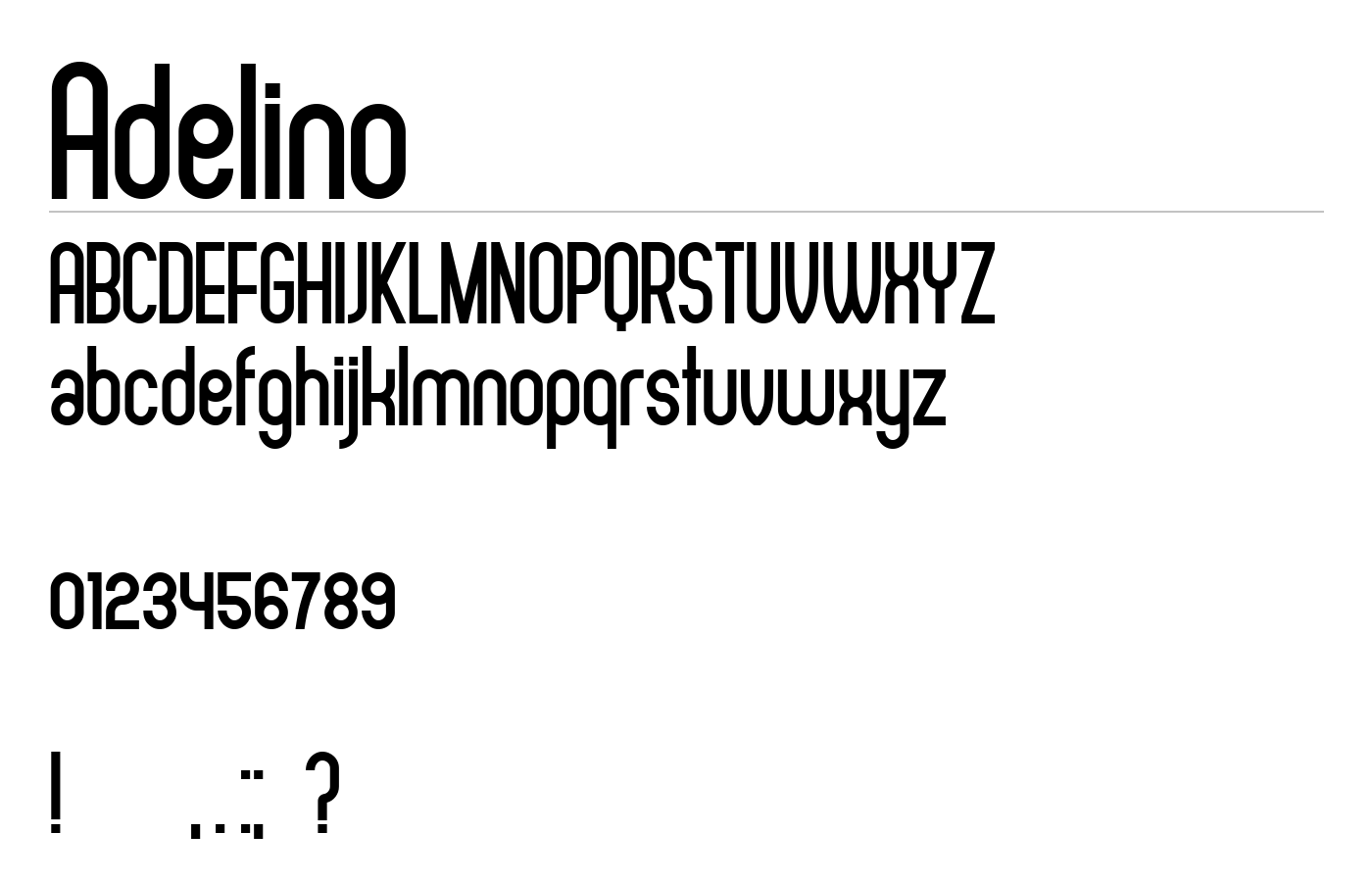
Adelino is a sleek, condensed sans serif font with a modern and geometric style, characterized by its tall x-height and uniform stroke weight. Its clean, narrow letterforms and minimalist design make it ideal for contemporary branding, headlines, and editorial use where a stylish yet readable look is desired. This font works particularly well for fashion, tech, and creative industries seeking a refined and modern aesthetic.
Adelino Font
About Adelino Font